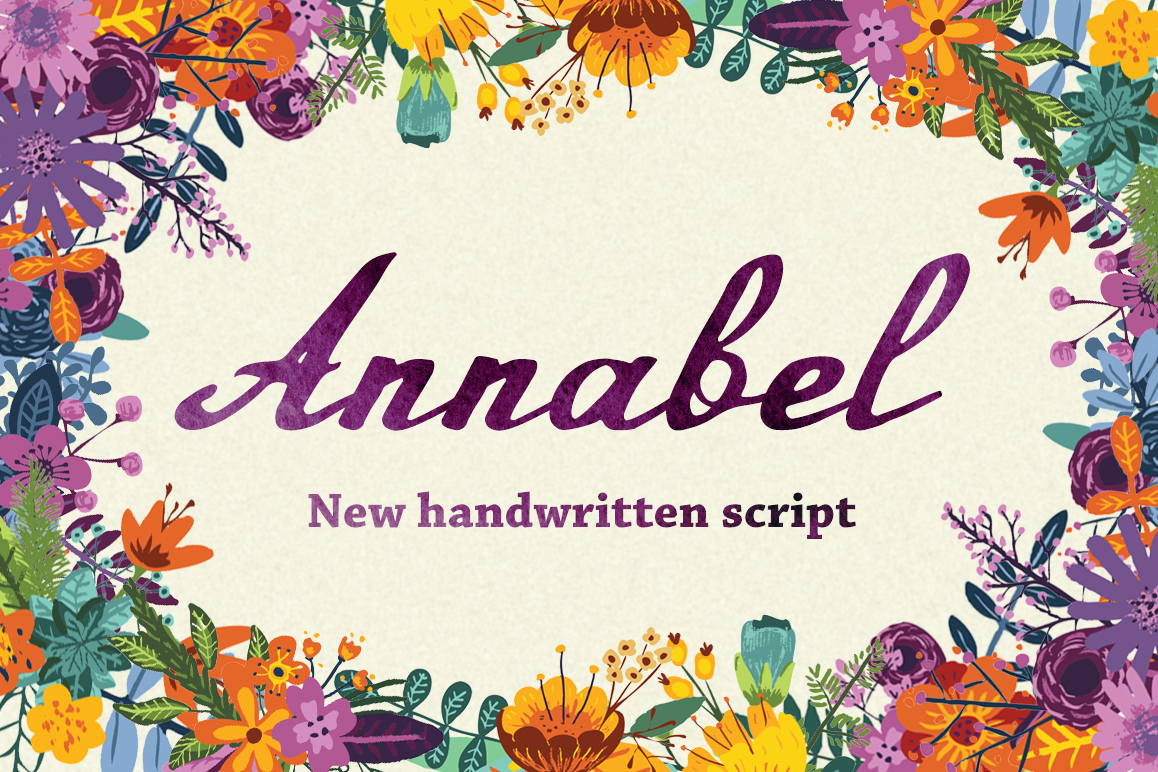
Annabel Script Typeface
Annabel-Regular
With is a new ink pen handwritten typeface. Cursive letter for romantic look. Really good for header, cards, prints or something like that. This is a simple font with basic glyphs set. Only latin. Simple cheap font for simple use.P.S.: Thanks to Pavel Korzhenko for them «Flowers in the dirt» (http://crtv.mk/e06tm) for my font cover. Cheers! Maya.